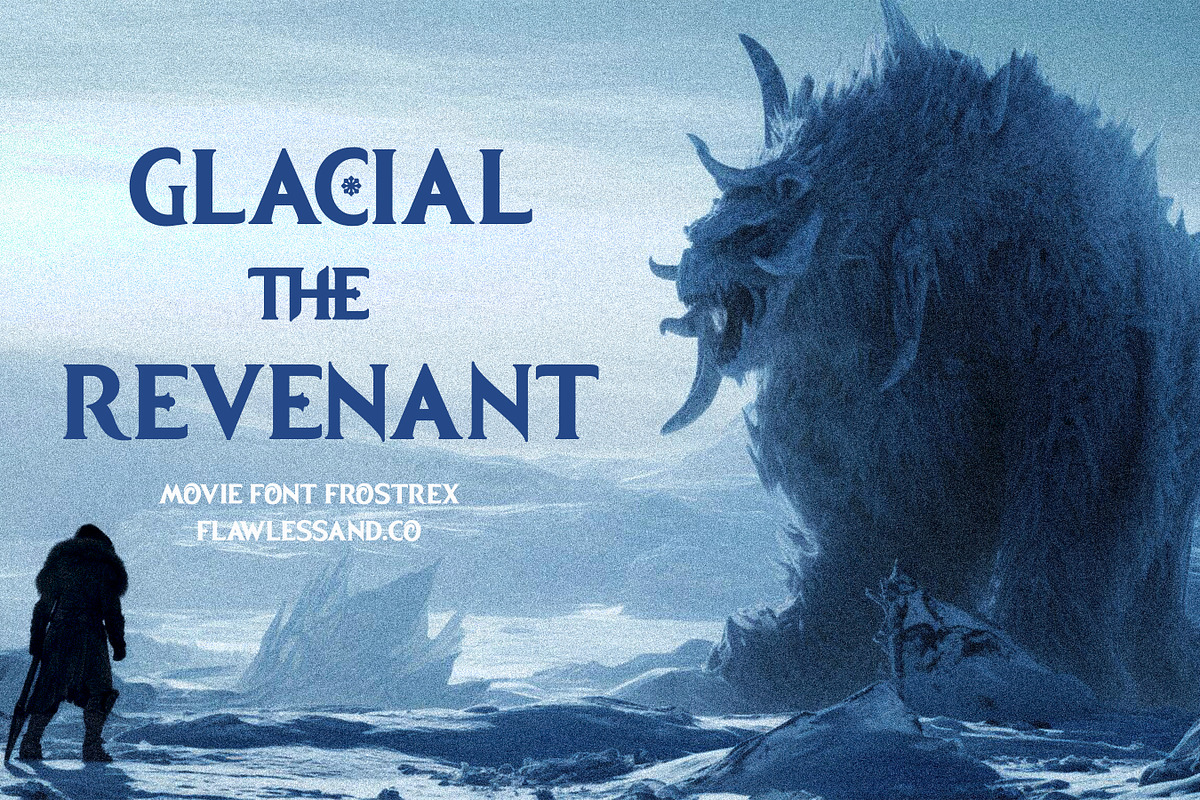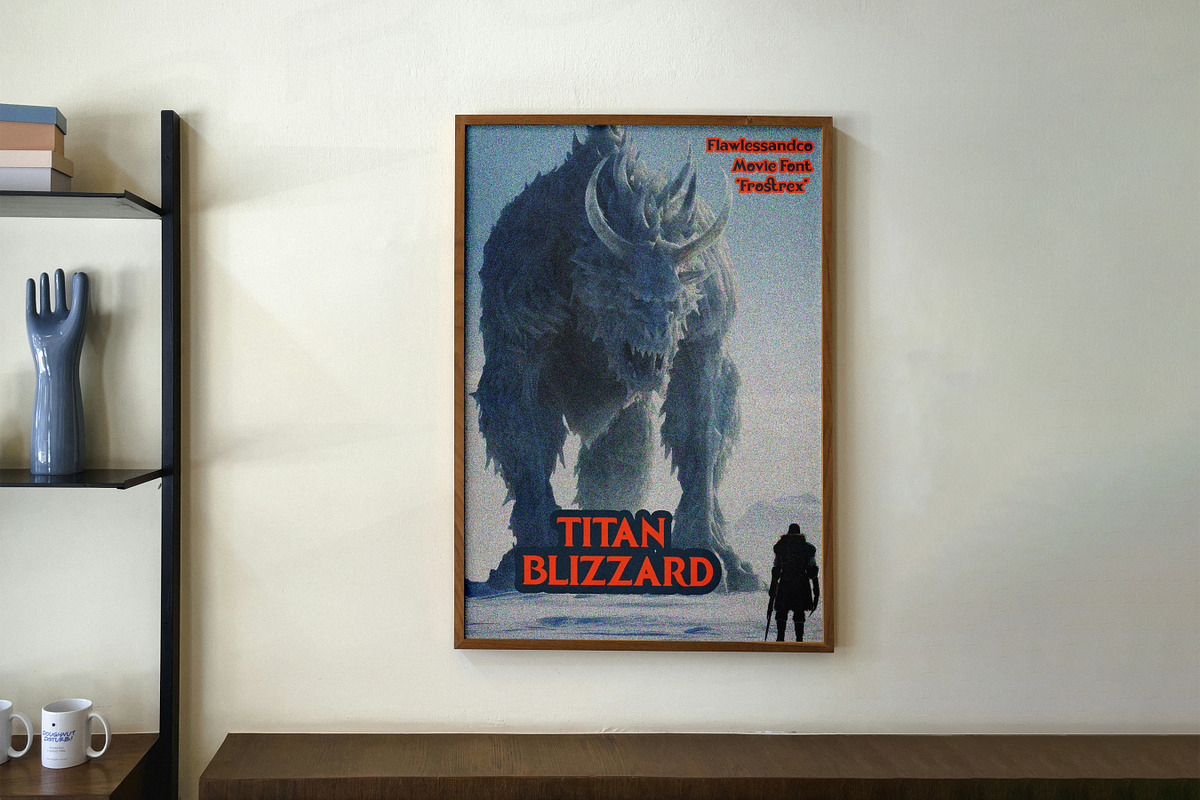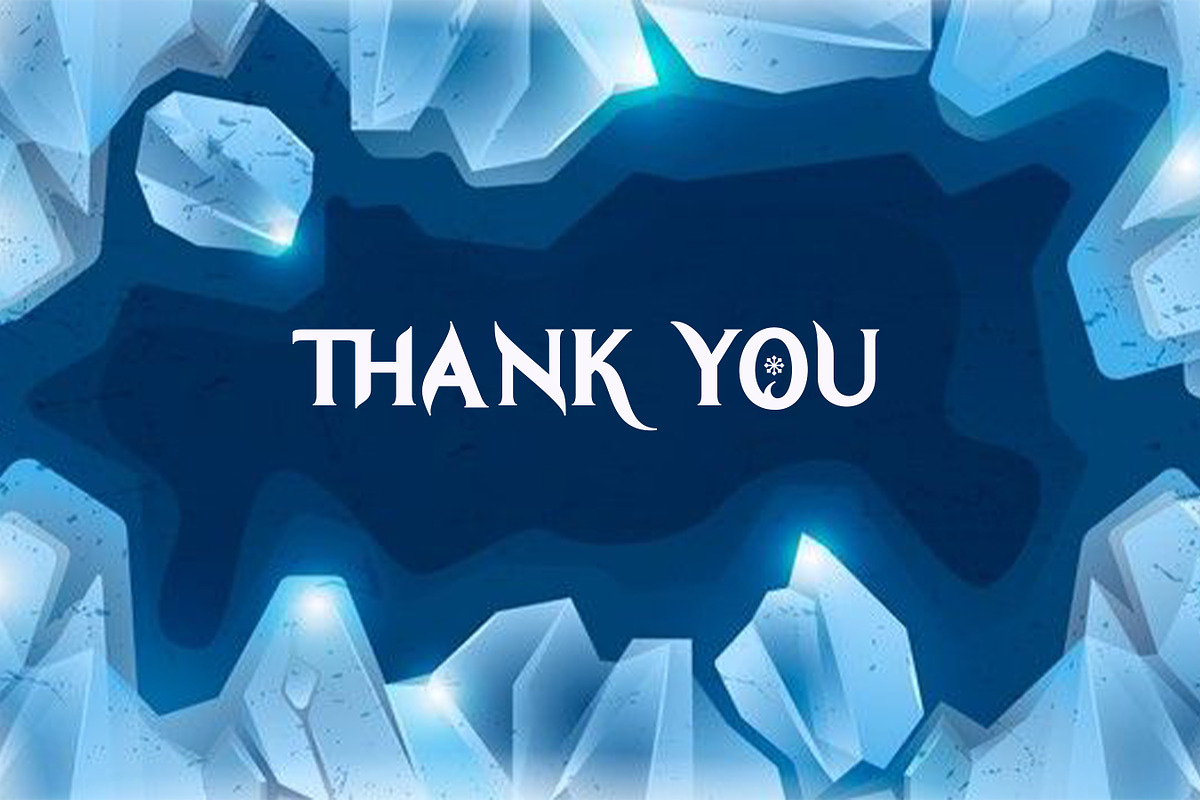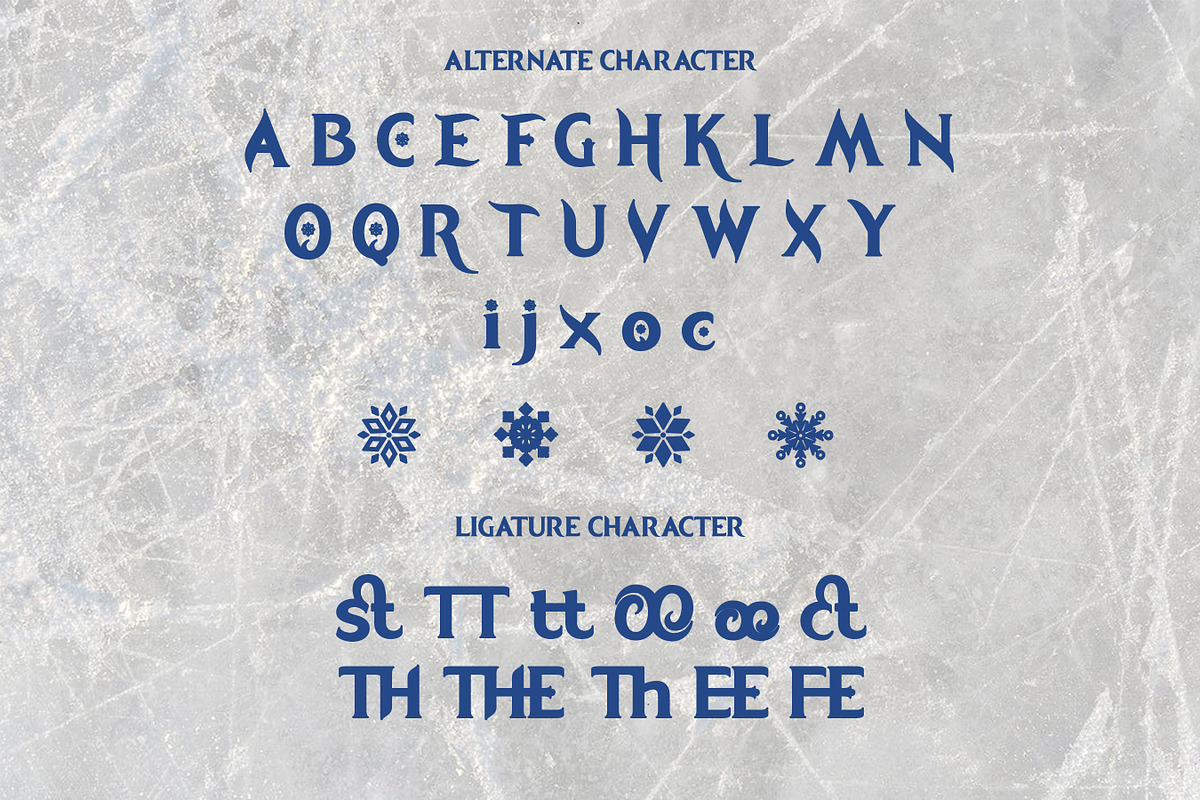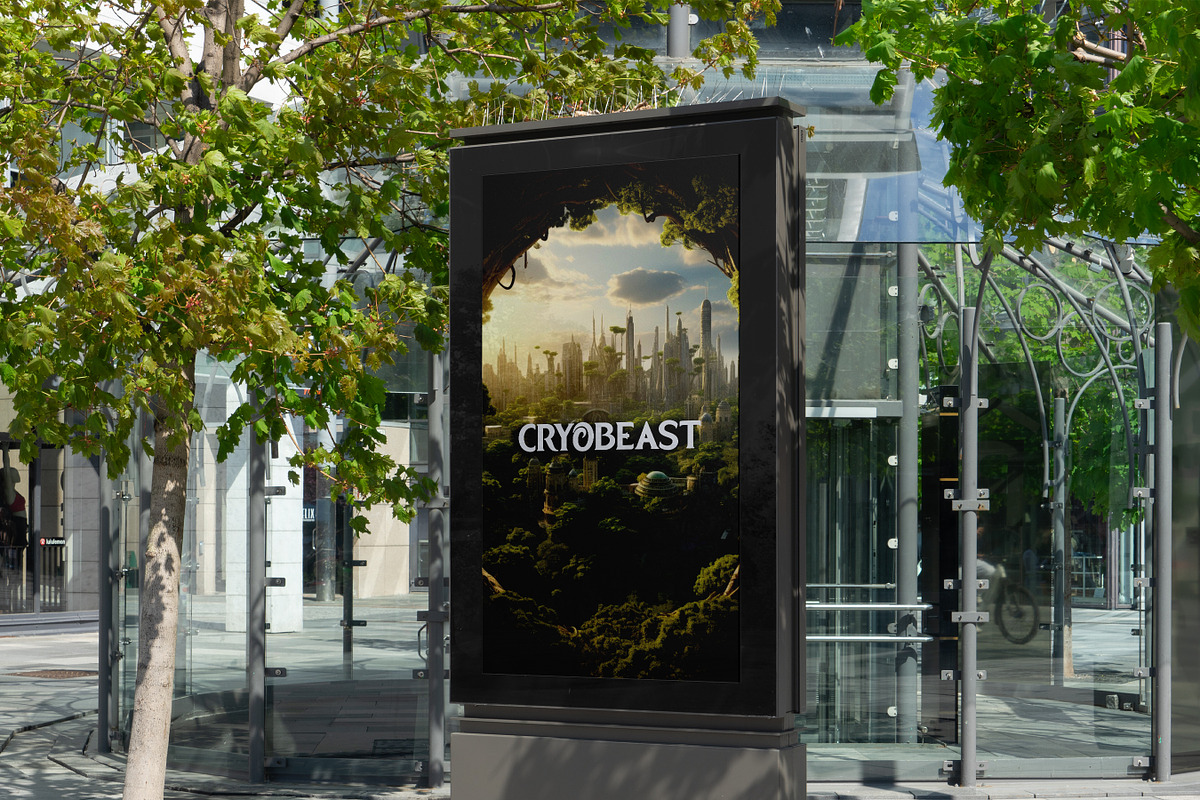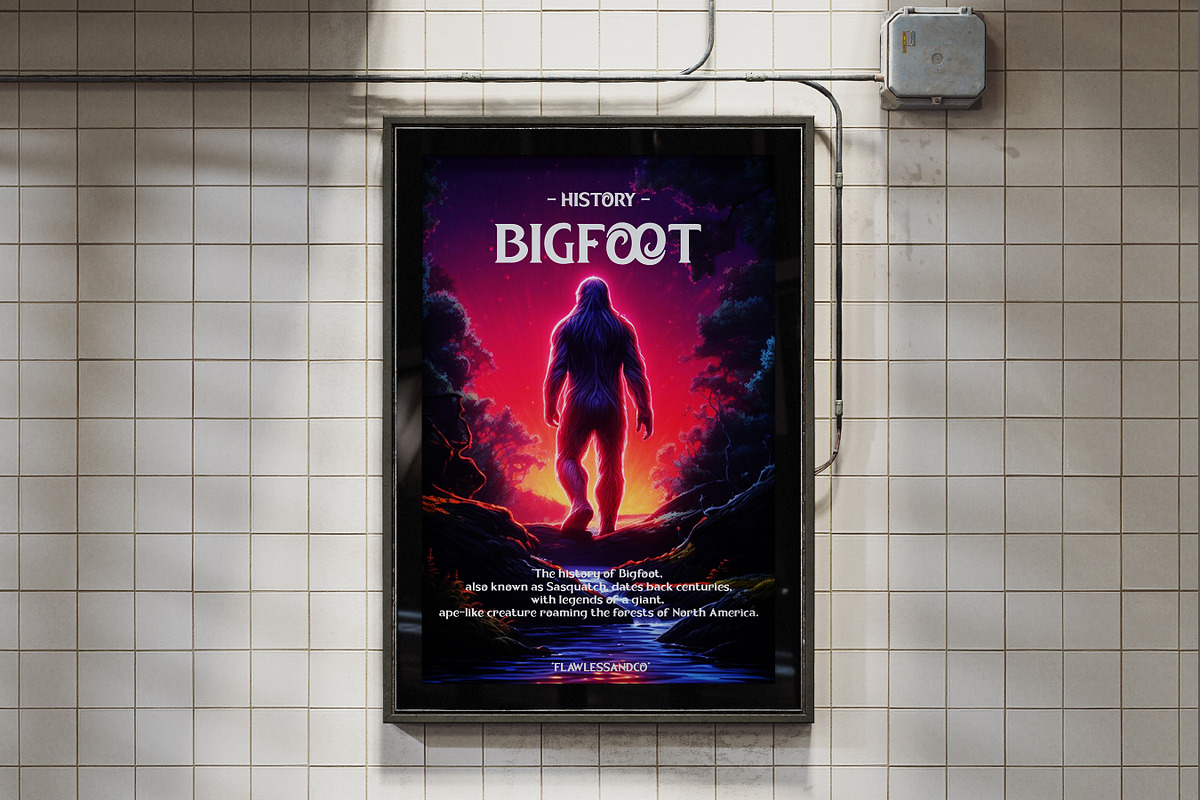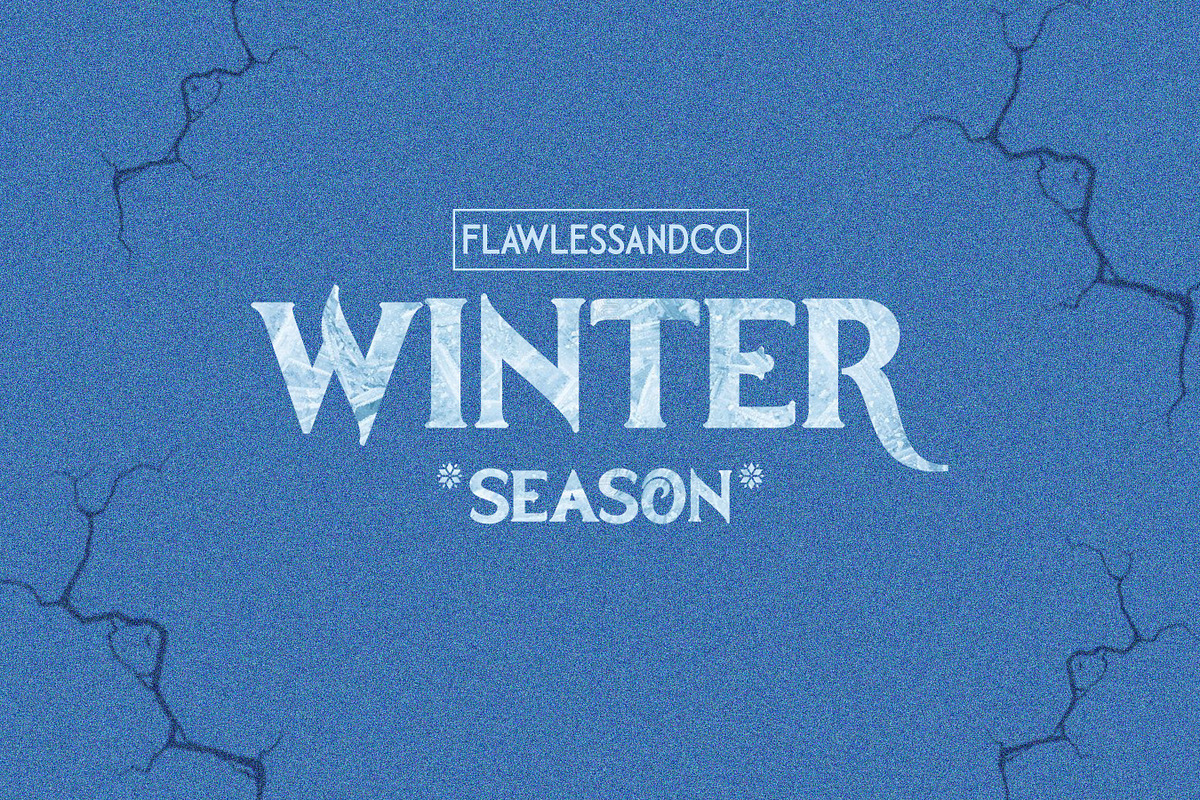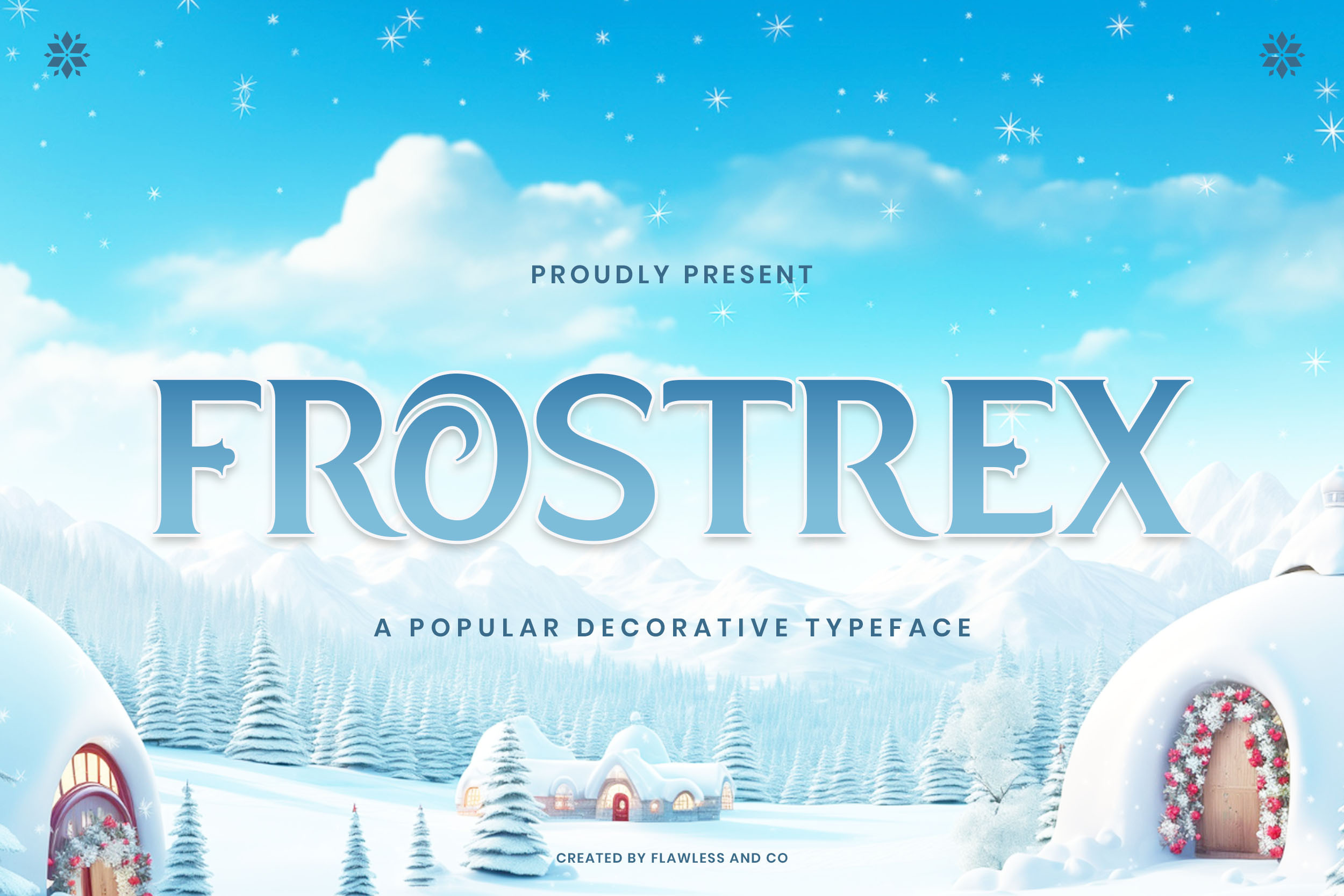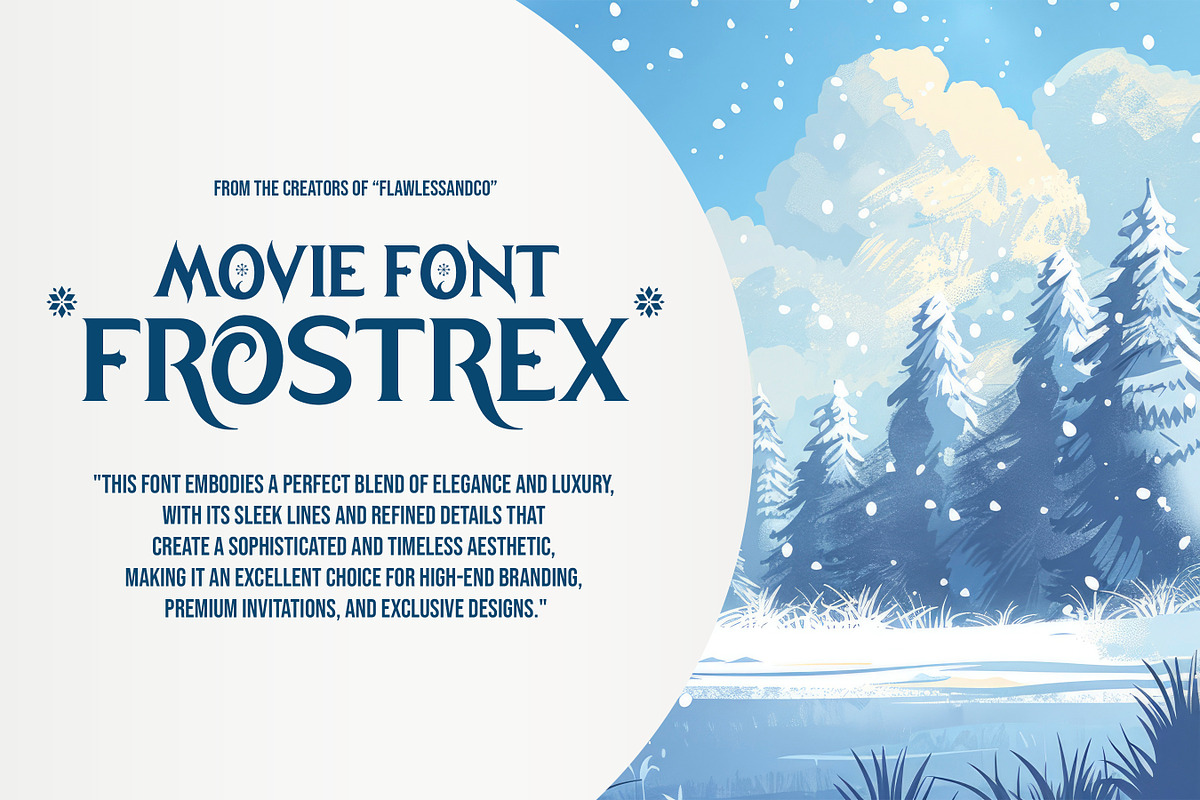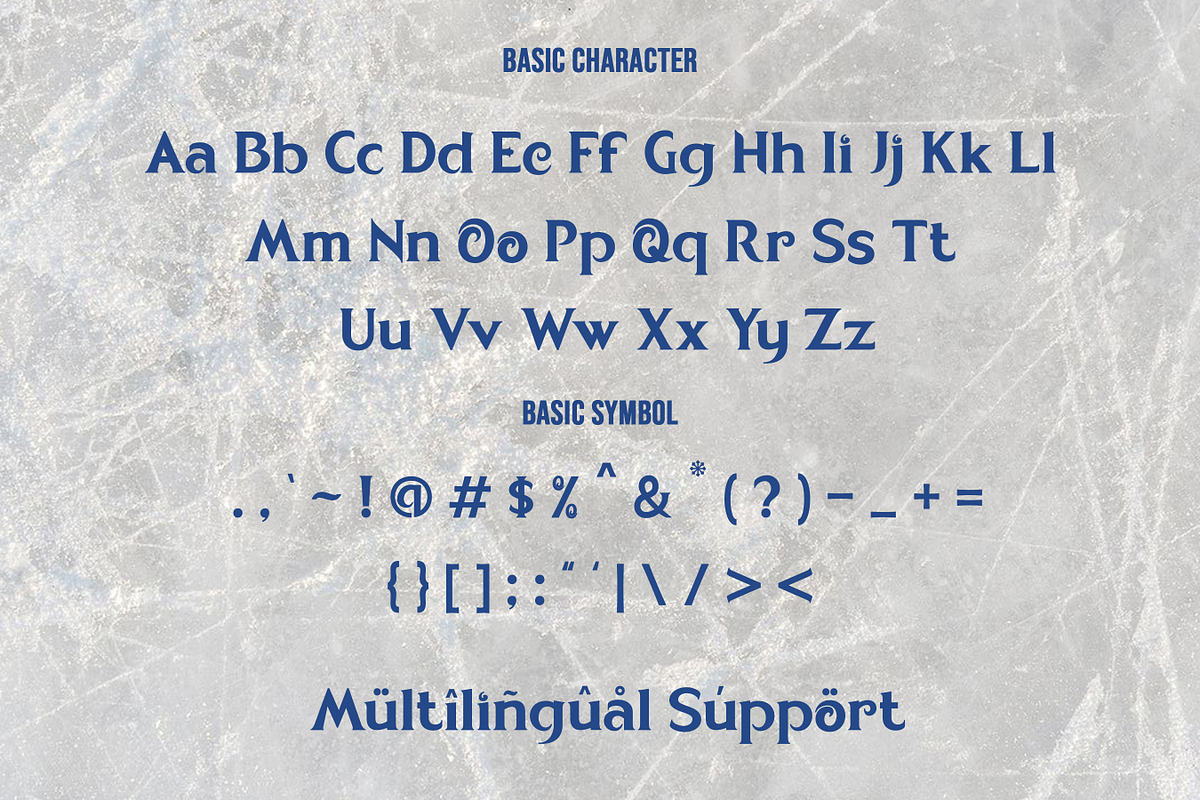
Frostrex - Decorative Font
Frostrex is a magical display font inspired by the enchanting world of Disney. With its whimsical and elegant letterforms, this font is suitable for fairy tale-themed projects, children's books, fantasy movie posters, animated film titles, theme park branding, merchandise design, and storybook covers. Perfect for bringing a touch of wonder and fantasy to your creative works!
Multilingual Uppercase alphabet A-Z Lowercase alphabet a-z Numbers 0-9 Some punctuation Alternates & Ligatures